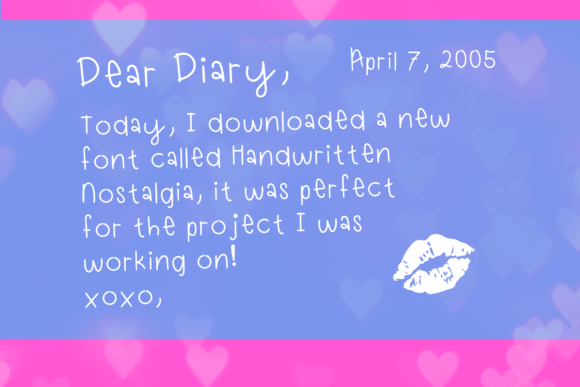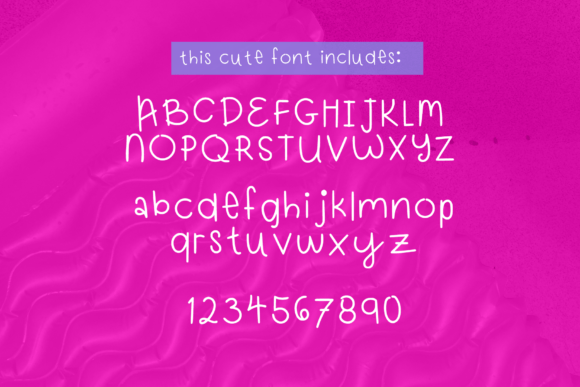
Unleash the Whimsy of the Past: Discover Handwritten Nostalgia Font
Do you remember the thrill of doodling in the margins of your notebook during class, or the excitement of writing love letters to a friend in your most elaborate handwriting? For many of us, those carefree moments are a cherished part of our childhood memories. But now, you can relive those feelings with the Handwritten Nostalgia Font, a delightful digital recreation of the handwritten notes and doodles that defined our youth.
This charming font is perfect for designers looking to add a touch of retro charm to their projects. With its whimsical feel and nostalgic charm, the Handwritten Nostalgia Font is sure to infuse your designs with a sense of youthful personality and warmth. Whether you’re creating invitations, social media graphics, or simply writing a heartfelt letter, this font is sure to bring a smile to your face and transport you back to a simpler time.
Handwritten Nostalgia Font Key Features
- Font Family: Handwritten Nostalgia Font, a unique and nostalgic script font designed to evoke a sense of warmth and familiarity.
- Size: The font family includes 6 weights, ranging from Light to Extra Bold, allowing for a wide range of design possibilities.
- Unique Characteristics: The font features a distinctive, handwritten feel with subtle imperfections and flourishes, giving it a natural and organic look.
- Language Support: The font includes support for Latin-based languages, making it a versatile choice for a wide range of design projects.
Handwritten Nostalgia Font Review
Overall, I’m really enjoying the Handwritten Nostalgia Font. It’s a beautiful, elegant script that’s perfect for adding a touch of nostalgia to your designs. ✨
Here are some things that really work well:
- Unique character set – The font has a great mix of uppercase and lowercase letters, numbers, and special characters, making it versatile and easy to use.
- Legibility – The font is easy to read, even at smaller sizes, which is a must for any font.
- Nostalgic feel – The font’s handwritten feel is perfect for creating a sense of nostalgia and warmth in your designs.
That being said, there are a few limitations:
- Limited font weights – The font only comes in a few weights, which can make it difficult to achieve a consistent look and feel across different design elements.
- No italic or bold-italic styles – While the font has a beautiful handwritten feel, it would be great to have some italic and bold-italic styles to add some extra flair.
Overall, I’m really impressed with the Handwritten Nostalgia Font. While it’s not perfect, it’s a beautiful and versatile font that’s perfect for adding a touch of nostalgia to your designs. With a few more font weights and styles, it could be truly exceptional.
The Handwritten Nostalgia Font is perfect for creating a warm and inviting atmosphere in your designs. Use it for:
- Food and coffee shop menus.
- Personalized gifts and cards.
- Brand identities and logos.
Remember to experiment with different font sizes, colors, and styles to get the most out of the Handwritten Nost
Great Vibes is a modern script font that exudes a sense of freedom and creativity. It’s perfect for use in projects that require a playful and energetic feel. Compared to Handwritten Nostalgia Font, Great Vibes has a more dynamic and expressive look, making it suitable for projects that need to convey a sense of excitement.
Playfair Display is an elegant, luxurious script font that’s perfect for use in high-end branding, advertising, and editorial design. It’s ideal for projects that require a sense of sophistication and refinement. Compared to Handwritten Nostalgia Font, Playfair Display has a more formal and sophisticated look, making it suitable for projects that need to convey a sense of elegance.